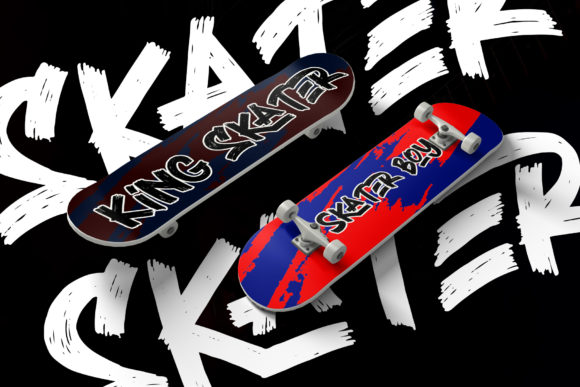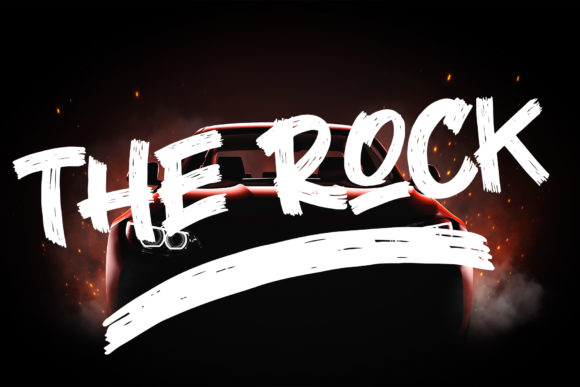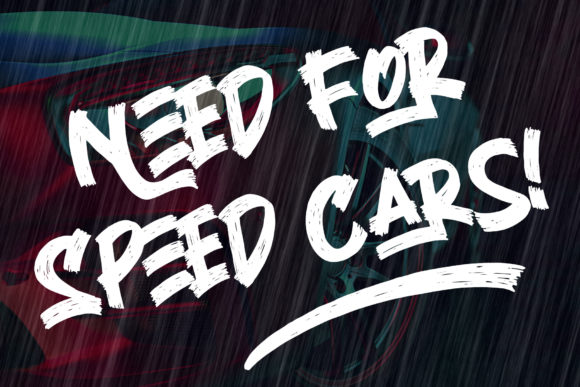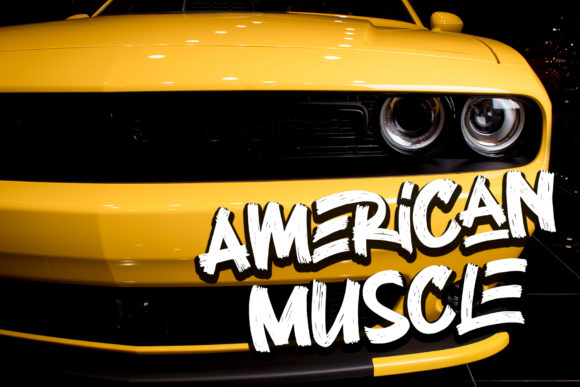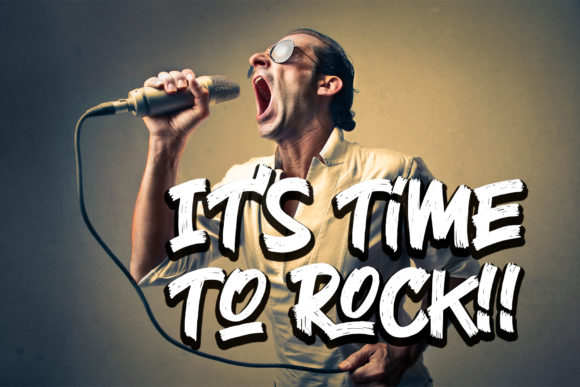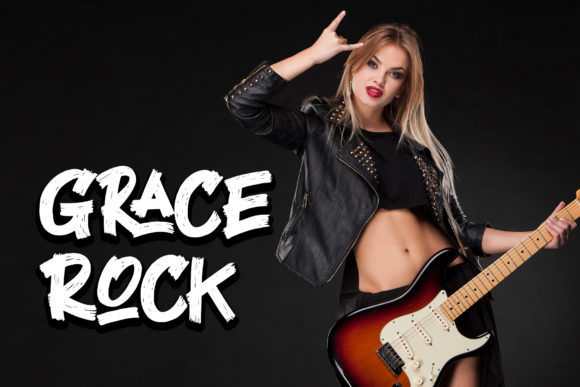
The Perfect Rockstar for Your Designs
Have you ever stared at a blank canvas, struggling to find the right font to bring your creative vision to life? It’s a moment we’ve all been there – the blank page staring back, taunting us to make a move. But what if you had a font that could kickstart your creativity, giving your designs the edge they need to rock?
Enter the Black Rocker Font – a bold, dry brush display font that’s ready to take center stage. With its tough, brush-stroke texture, this font is perfect for logos, quotes, posters, clothing, and any other design project that needs a strong, eye-catching statement. As a designer, you know how valuable it is to have a versatile font that can adapt to any style or theme. The Black Rocker Font delivers, making it an essential addition to any design toolkit.
Black Rocker Font Key Features
- Font Style: A bold, sans-serif font with a rock-inspired aesthetic, ideal for music, gaming, or edgy designs.
- Unique Characteristics: Features a distinctive, hand-drawn feel with bold lines and angular shapes, giving it a unique, eye-catching look.
Black Rocker Font Review
The Black Rocker Font is a bold, edgy font that’s perfect for making a statement. ✨ Its heavy lines and rugged texture give it a rock ‘n’ roll vibe that’s sure to grab attention.
I particularly love the font’s versatility. It works well in both uppercase and lowercase, making it easy to use in a variety of contexts. ✨ Whether you’re designing a logo, heading, or body text, Black Rocker Font is a great choice.
- Heavy, bold lines that make a statement
- Rugged texture adds depth and interest
- Works well in both uppercase and lowercase
- Perfect for making a bold, edgy statement
- May be too bold for some applications (e.g. body text)
- Not suitable for formal or elegant designs
- May be difficult to read at small sizes
- Can be overwhelming if used too extensively
Overall, I think the Black Rocker Font is a great addition to any designer’s toolkit. It’s perfect for making a bold statement, but be mindful of its limitations and use it judiciously. ⚠️
Tips for Getting the Most Out of the Black Rocker Font
Use the Black Rocker font to add a touch of edginess to your designs. It’s perfect for creating bold, eye-catching headlines and titles. To get the most out of the font, experiment with different font sizes and colors to create a striking visual effect.
The Black Rocker font is commonly used in designs that require a bold, rock-inspired aesthetic. Some common use cases include:
- Music festival posters and flyers
- Rock band logos and merchandise
- Edgy social media graphics and ads